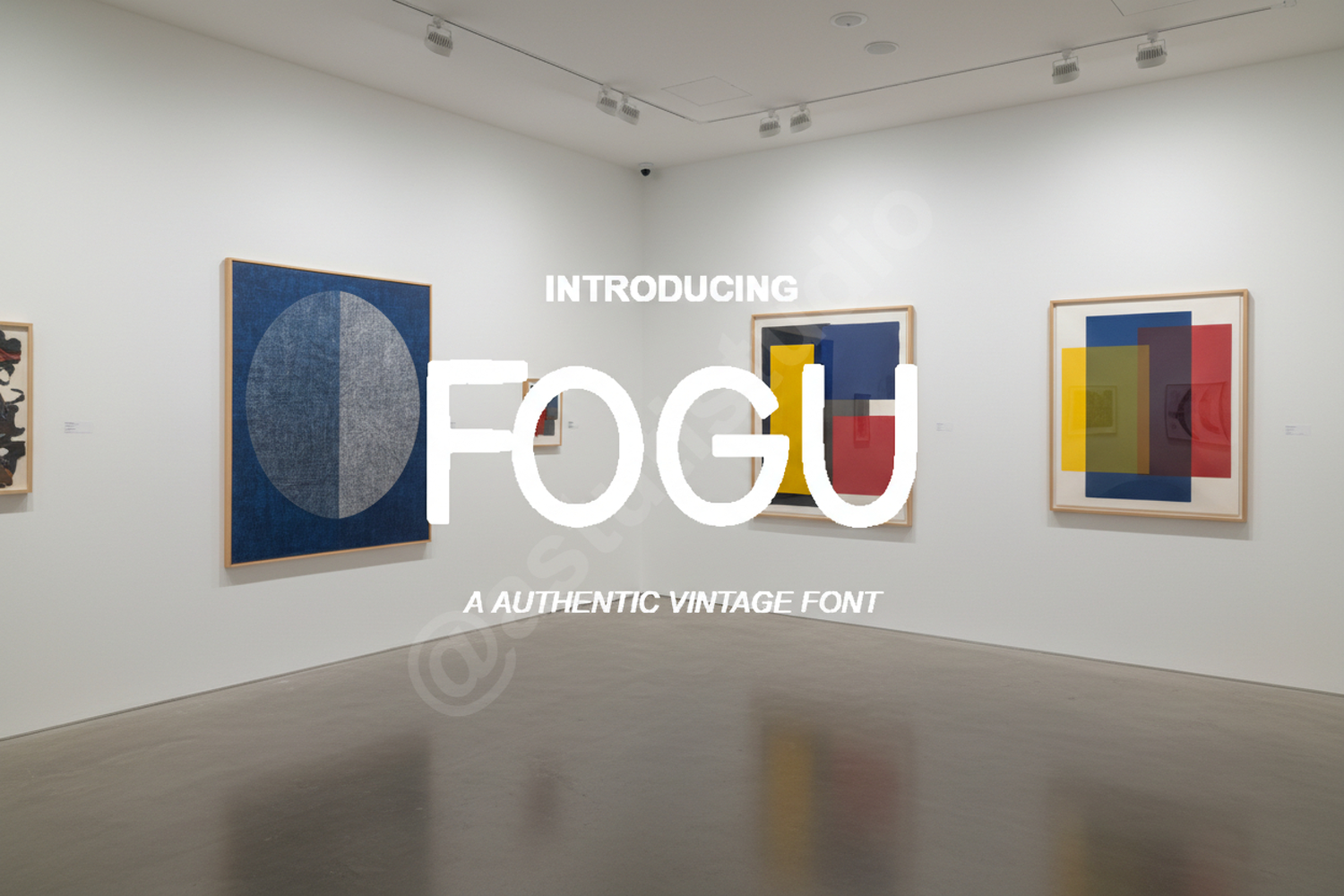
Fogu - Contemporary Minimalist Display Font
Fogu
Fogu is a premium display typeface meticulously crafted to bring a touch of modern sophistication to your creative projects. With its clean lines and balanced proportions, Fogu offers a versatile solution for designers seeking a professional edge. Whether you are building a high-end brand identity or a sleek digital interface, this font delivers exceptional legibility and a timeless aesthetic.
- Branding and Logo Design: Create memorable and impactful visual identities.
- Editorial Design: Perfect for bold headlines and sophisticated magazine layouts.
- Social Media Graphics: Stand out on platforms like Instagram and Pinterest.
- Advertising: Highly effective for posters, banners, and high-conversion digital ads.
- Wedding Stationery: Ideal for modern and minimalist invitation suites.